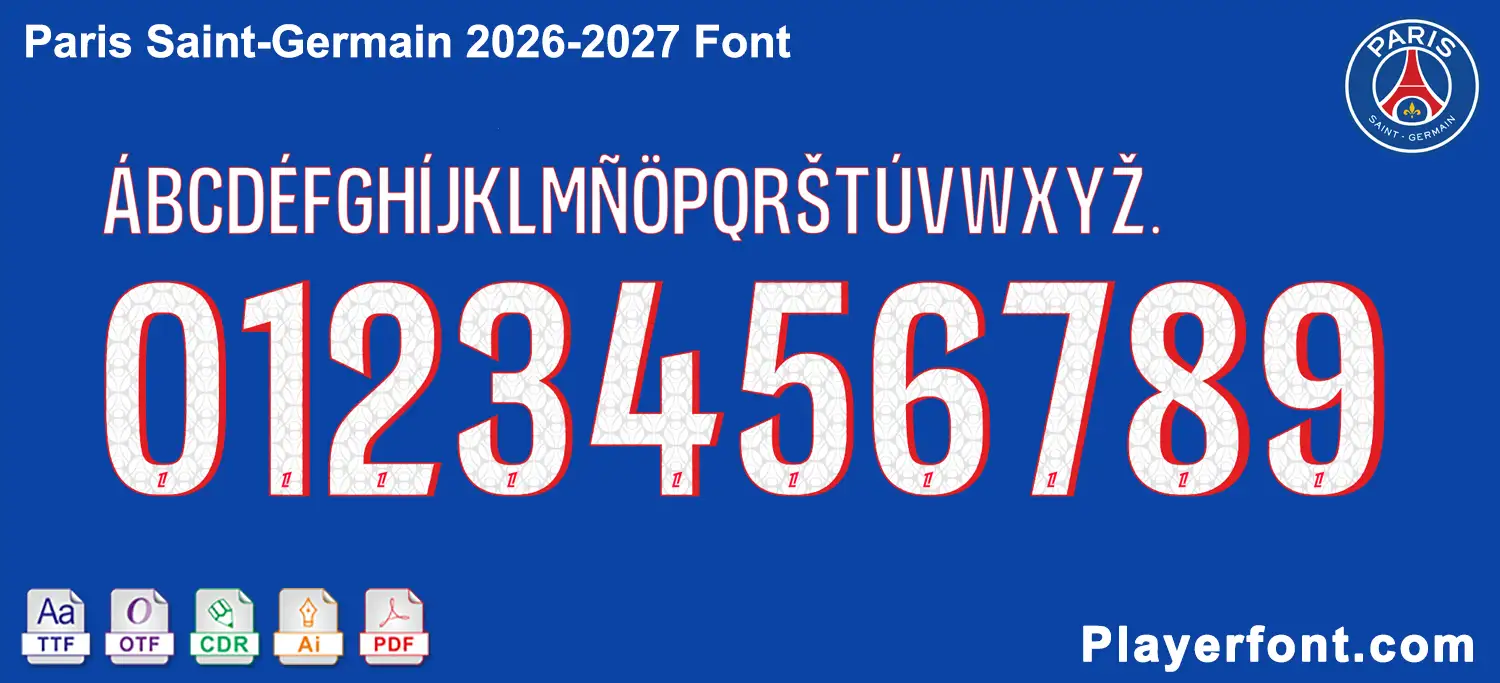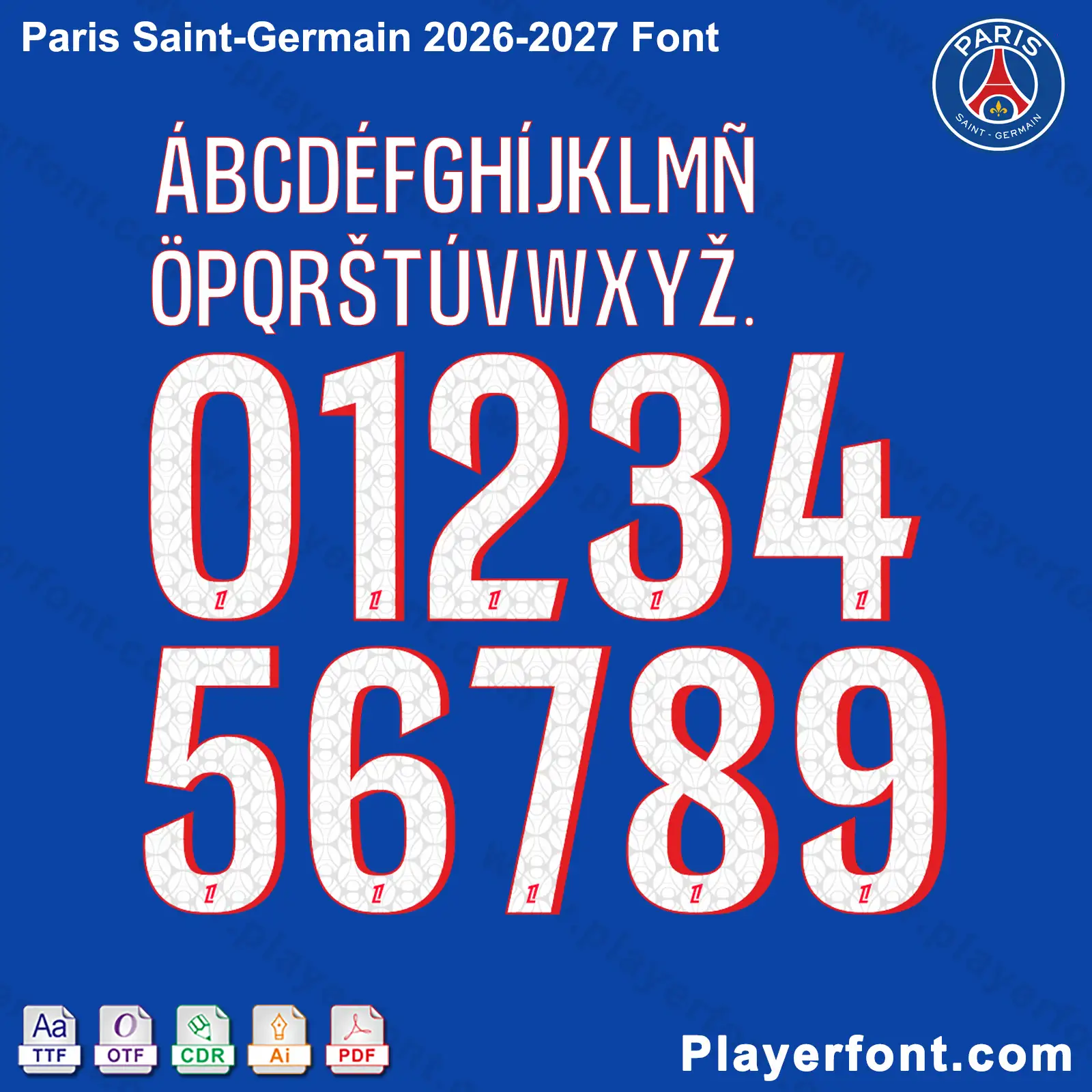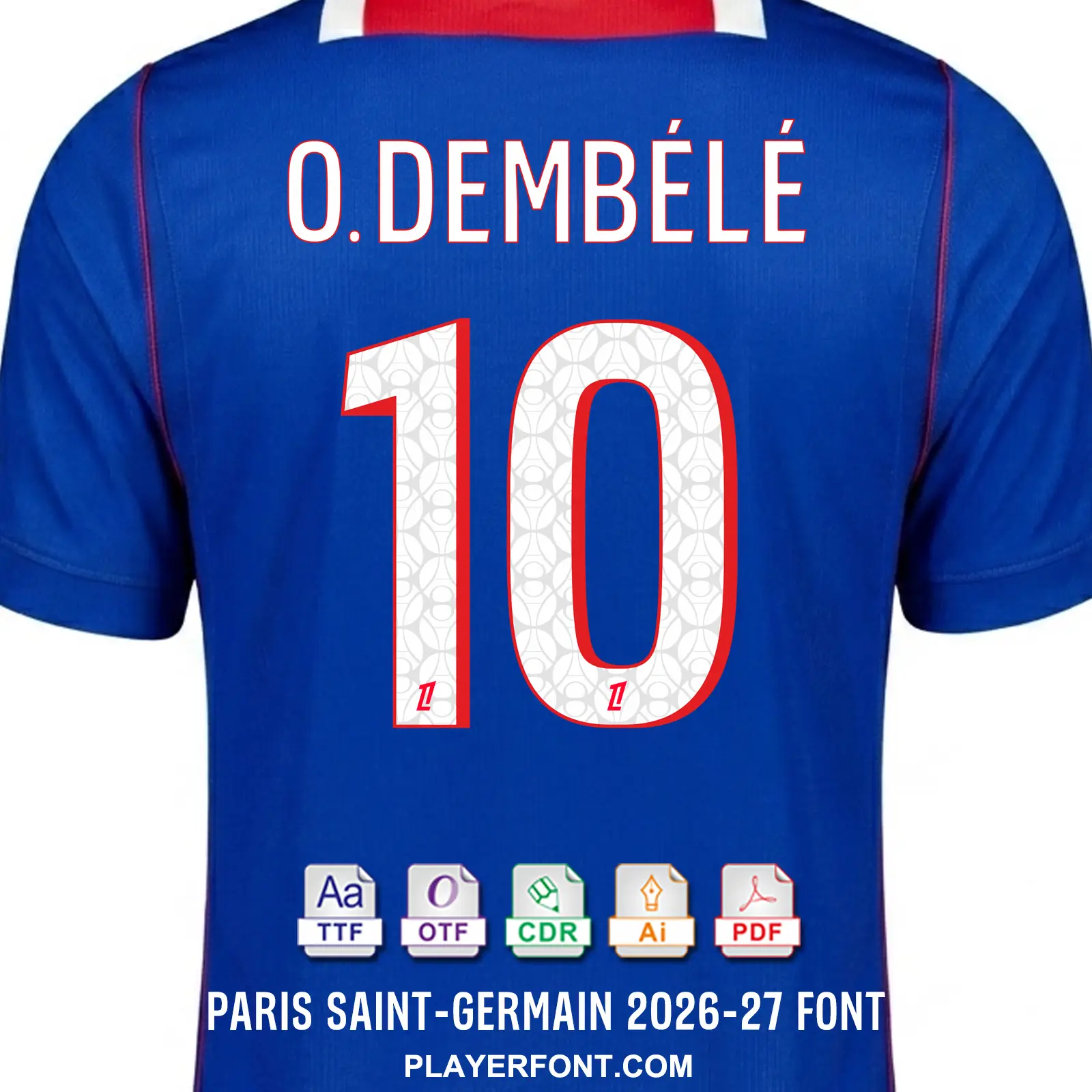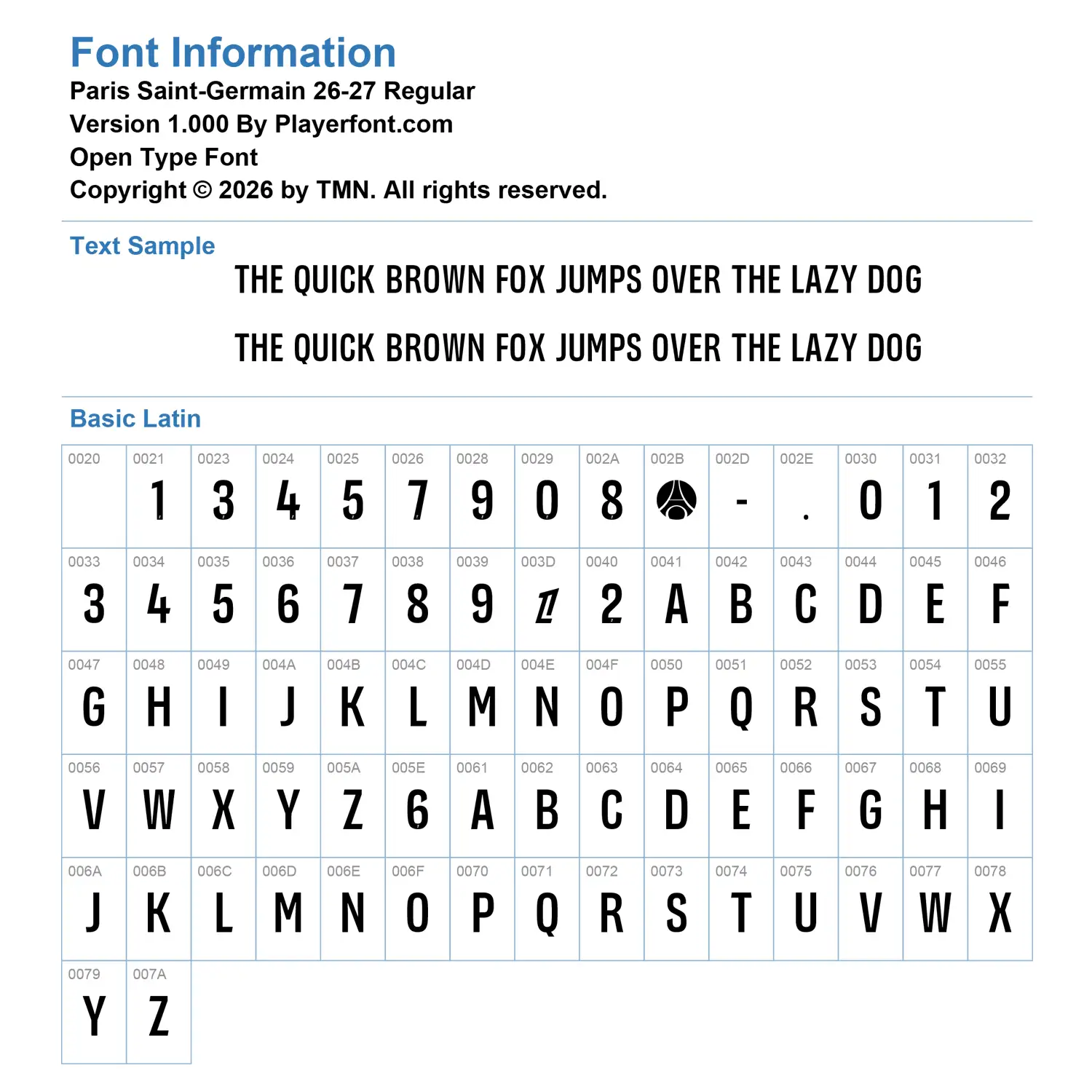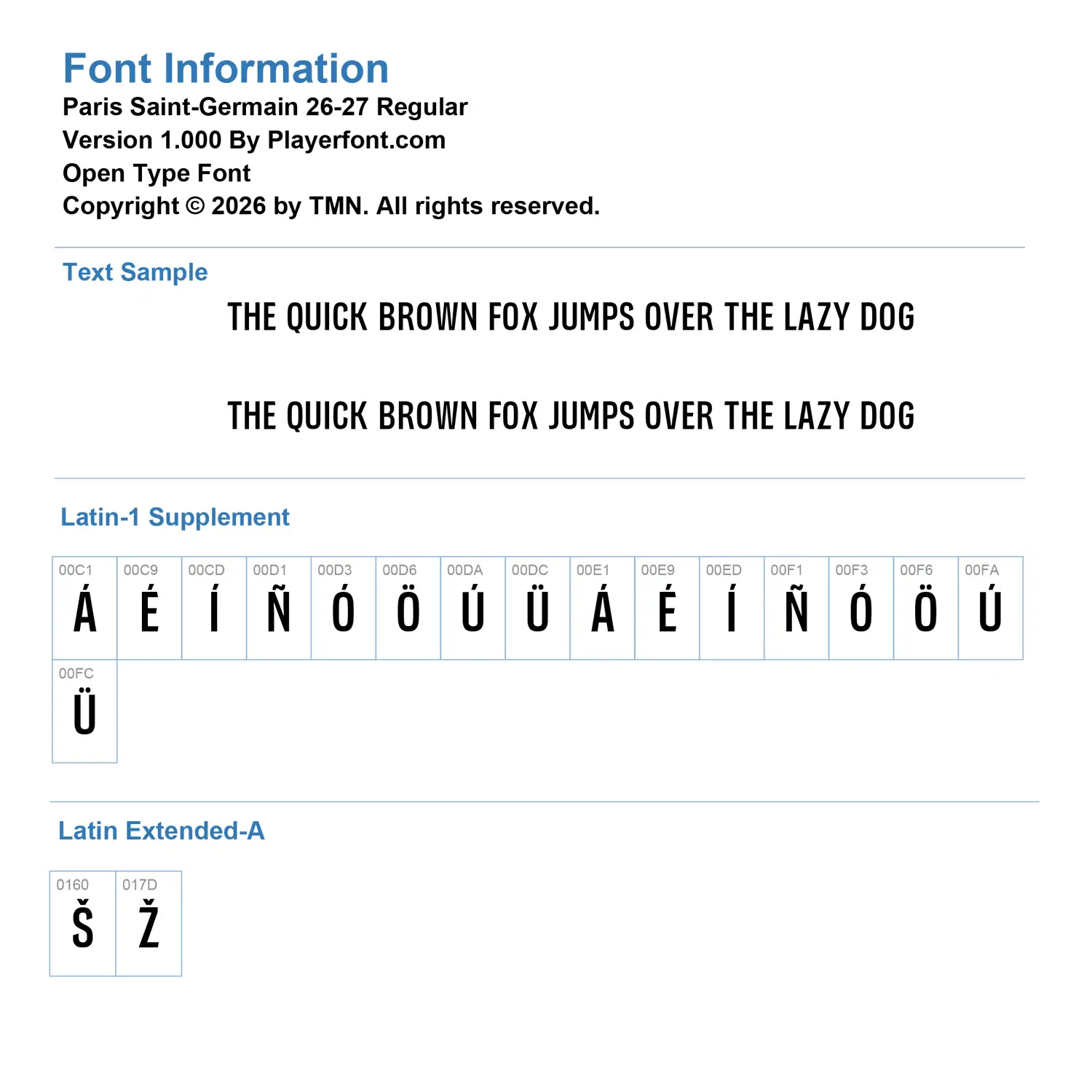
Paris Saint-Germain 2026-2027 Font Download
You can now recreate the iconic look of the Parisians with our Paris Saint-Germain 2026-2027 Font. We designed this typography kit to match the aesthetic of the 26-27 season kits perfectly. Consequently, graphic designers and die-hard fans can now achieve the precision needed for authentic jersey customization.
Why Choose this PSG 26-27 Typography Kit?
Full Set: The download includes all letters and numbers 0-9.
Special Accents: Specifically, we support characters for names like DembΓ©lΓ©.
Details of the Paris Saint-Germain 2026-2027 Font
This typography uses a modern, tall style. Specifically, the numbers have a hexagonal pattern inside. A precision team logo sits at the base of each digit. Because of these details, your custom shirts will look official. Moreover, the letters follow the exact athletic block style of the club.
How to Use the New PSG Lettering